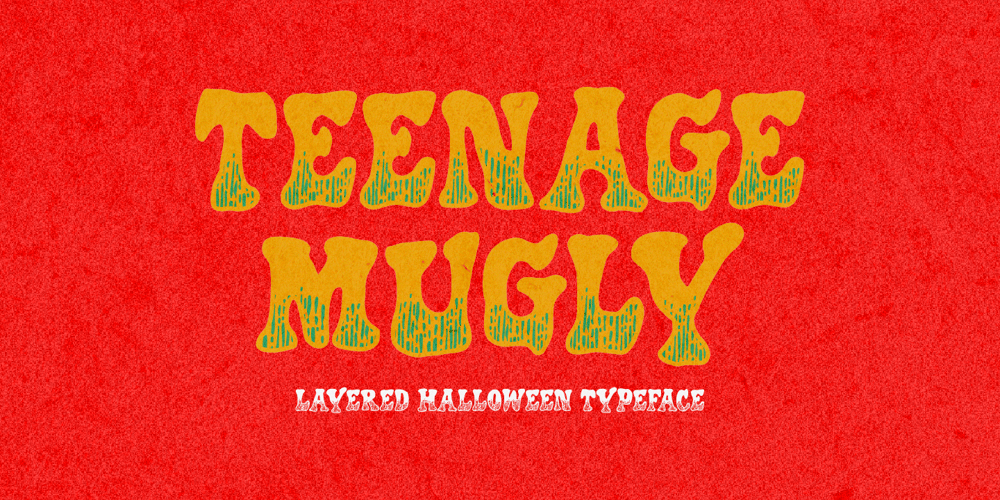
TF Mugly
TF Mugly font
TF Mugly Font Family was designed by Miftahul Habib and published by Teenage Foundry. TF Mugly contains 1 styles and family package options. Introducing by Teenage Foundry!Teenage Mugly is a Layered Halloween Typeface FontThis font is thoughtfully designed with layers, allowing you to create charming and eye-catching Halloween-themed typography. layers add depth and dimension, giving your text a very beautiful look.With its spooky and unique letterforms, this font evokes the spirit of Halloween, perfectly capturing the essence of witches, ghosts, and all things supernatural.Whether you’re designing a party poster, invitation, or spooky social media graphic, this layered Halloween typeface is a must-have for adding enchanting charm to your designs.Multilingual contained: Afrikaans, Albanian, Asu, Basque, Bemba, Bena, Breton, Catalan, Chiga, Cornish, Danish, Dutch, English, Estonian, Filipino, Finnish, French, Friulian, Galician, German, Gusii, Indonesian, Irish, Italian, Kabuverdianu, Kalenjin, Kinyarwanda, Luo, Luxembourgish, Luyia, Machame, Makhuwa-Meetto, Makonde, Malagasy, Manx, Morisyen, North Ndebele, Norwegian Bokmål, Norwegian Nynorsk, Nyankole, Oromo, Portuguese, Quechua, Romansh, Rombo, Rundi, Rwa, Samburu, Sango, Sangu, Scottish Gaelic, Sena, Shambala, Shona, Soga, Somali, Spanish, Swahili, Swedish, Swiss German, Taita, Teso, Uzbek (Latin), Volapük, Vunjo, Zulu.For any questions please contact me 🙂Thanks!